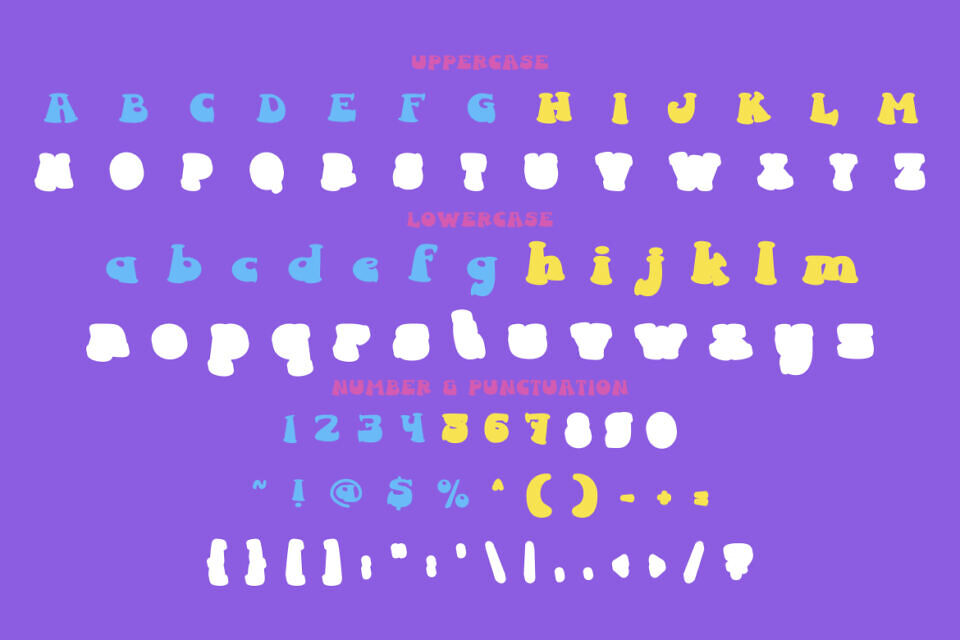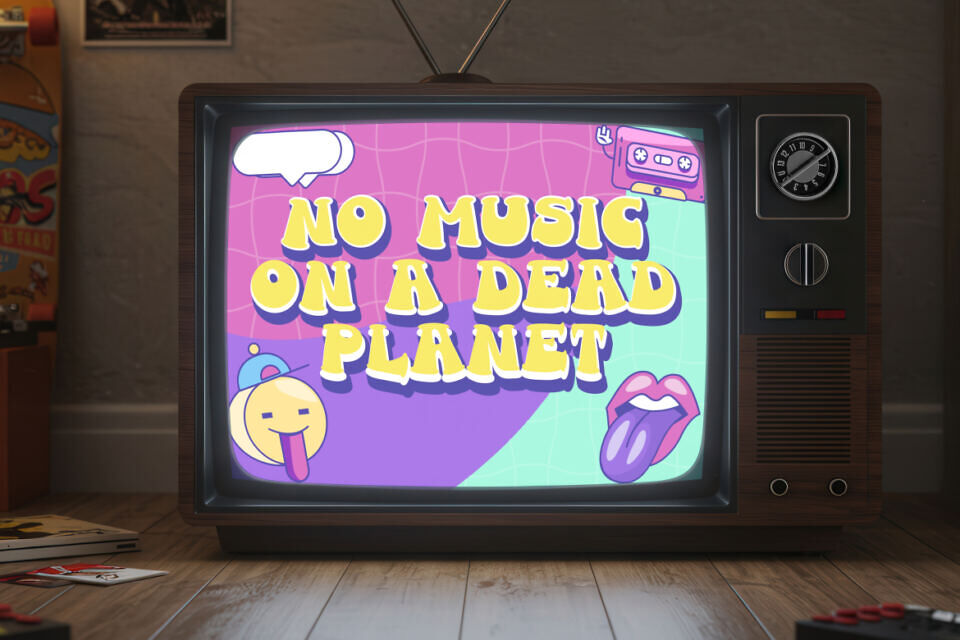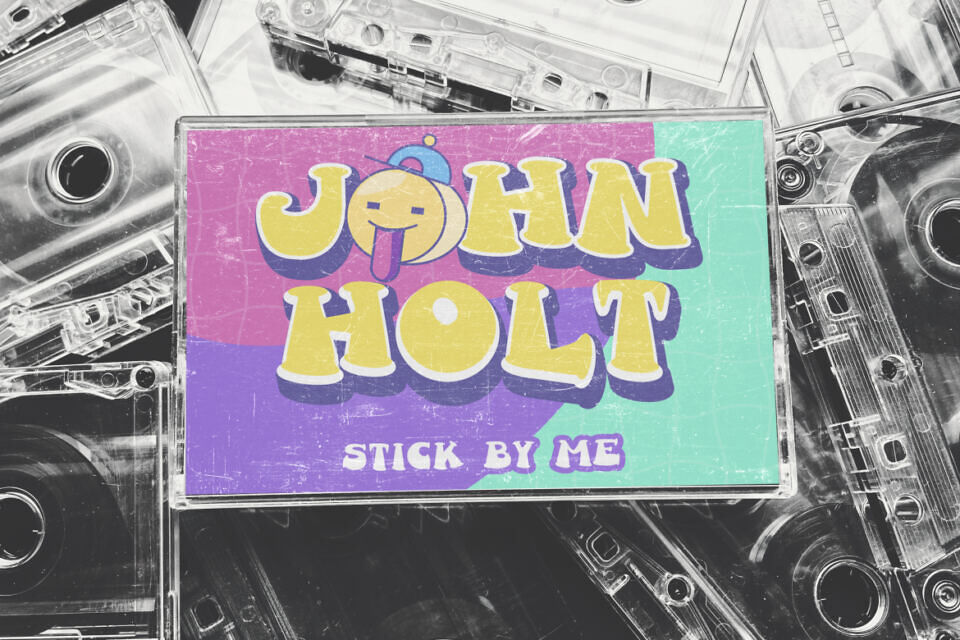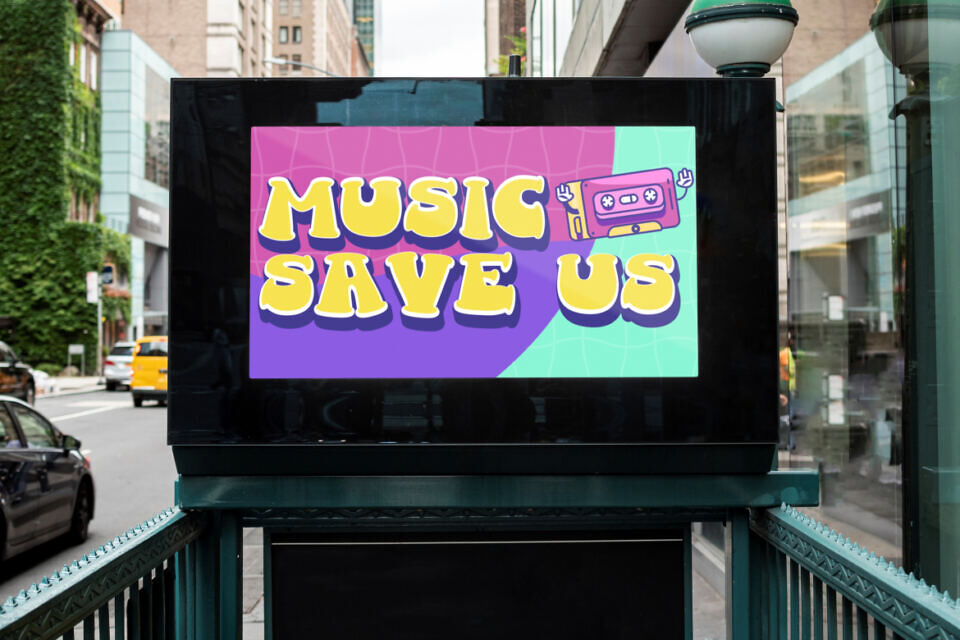
Boldin Font
Boldin 3D Font is a lively and colorful typeface designed to bring joy and personality to your projects. Featuring chunky, rounded letterforms with a built-in 3D shadow effect, it delivers instant depth and a vibrant pop.
Its playful style is enhanced with smooth curves, thick strokes, and a cartoon-inspired charm, making it stand out in both print and digital designs. The bold structure ensures strong readability while maintaining a lighthearted and fun character, perfect for attention-grabbing headlines.